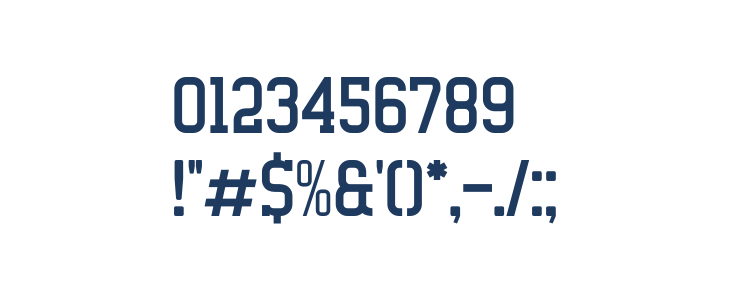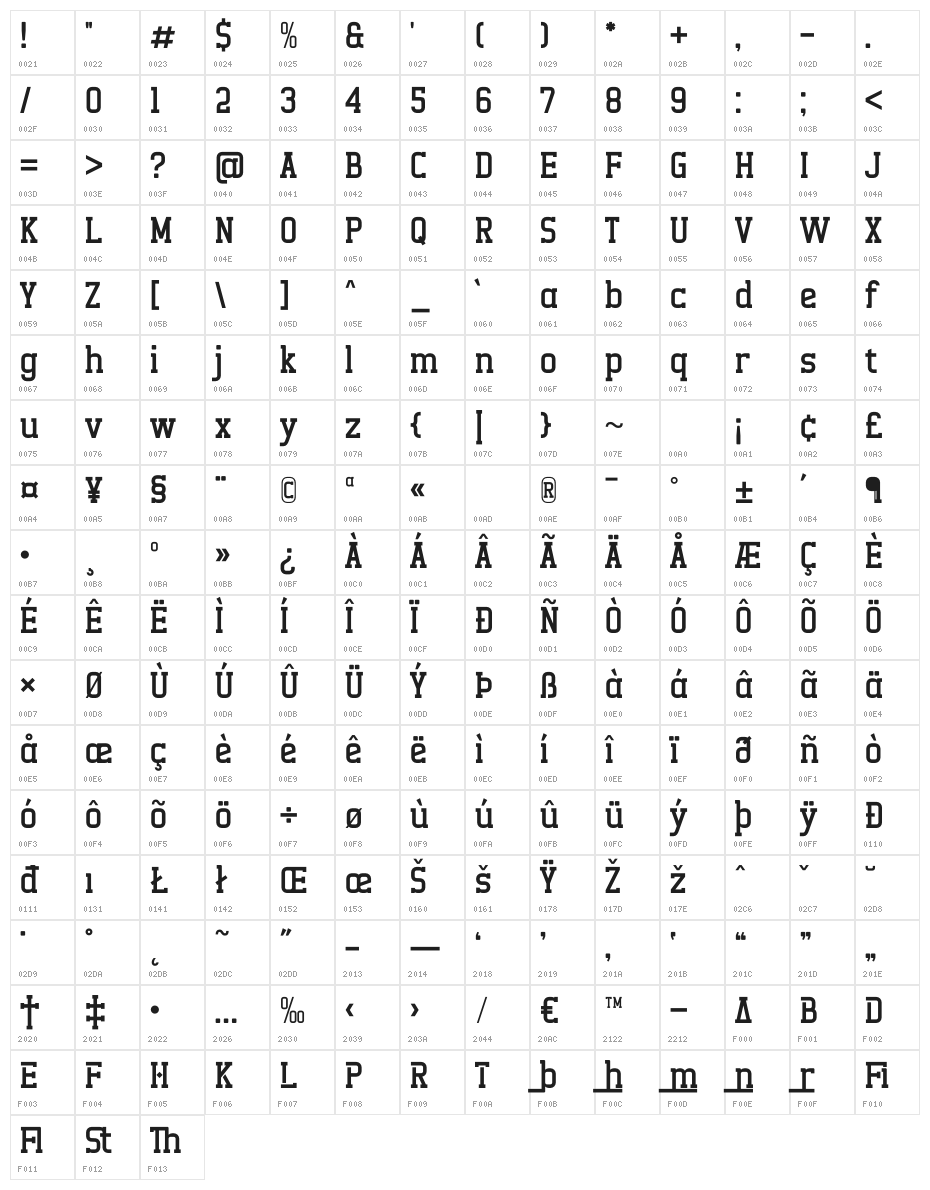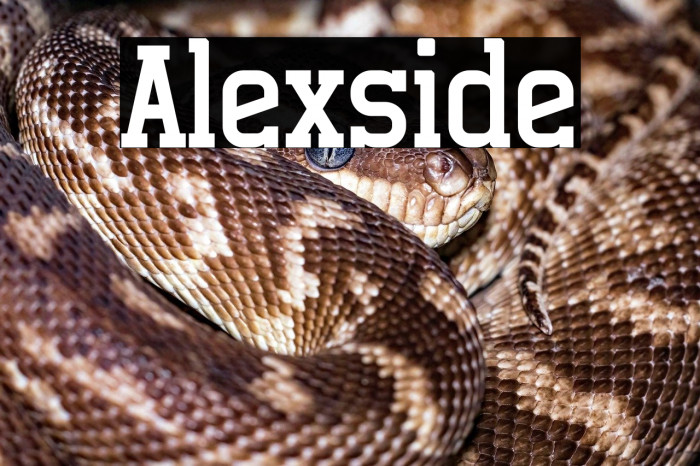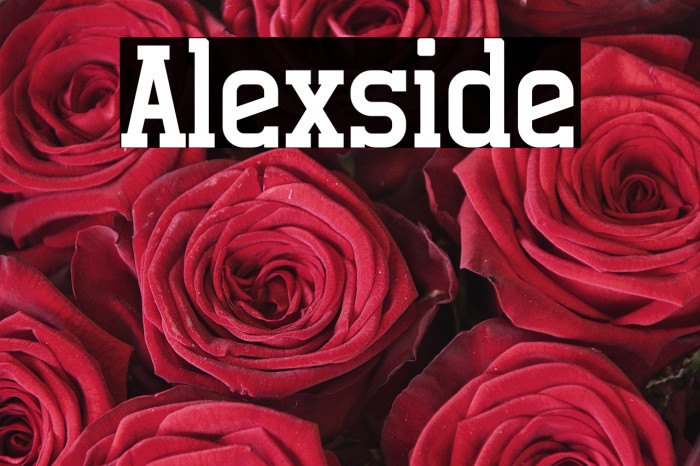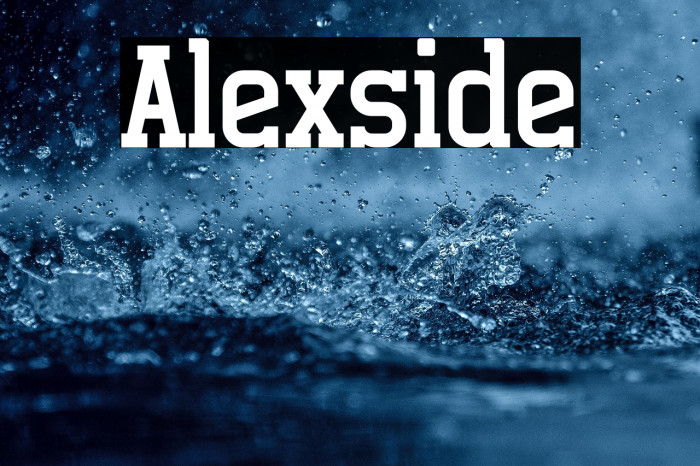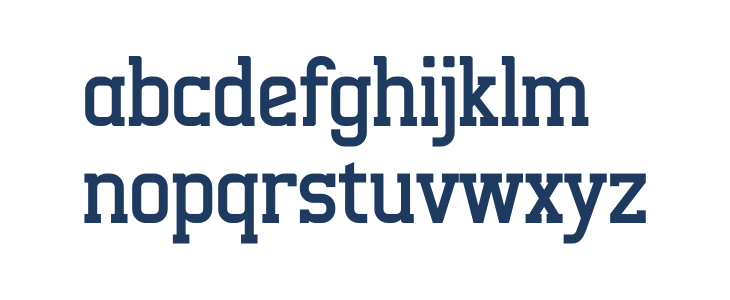
Alexside Font
Alexside Description
This font features a bold, slab serif style with strong geometric shapes and a robust presence. The uppercase letters are tall and commanding, while the lowercase letters maintain a consistent weight and structure, providing a harmonious balance. The numerals are clear and legible, with a uniform width that complements the overall design. Special characters are distinct and well-integrated, enhancing the font's versatility. The font's boldness and clarity make it suitable for impactful headlines and attention-grabbing designs.
| Proposed Projects | Ideal for posters, branding, headlines, and any project requiring a strong visual impact. |